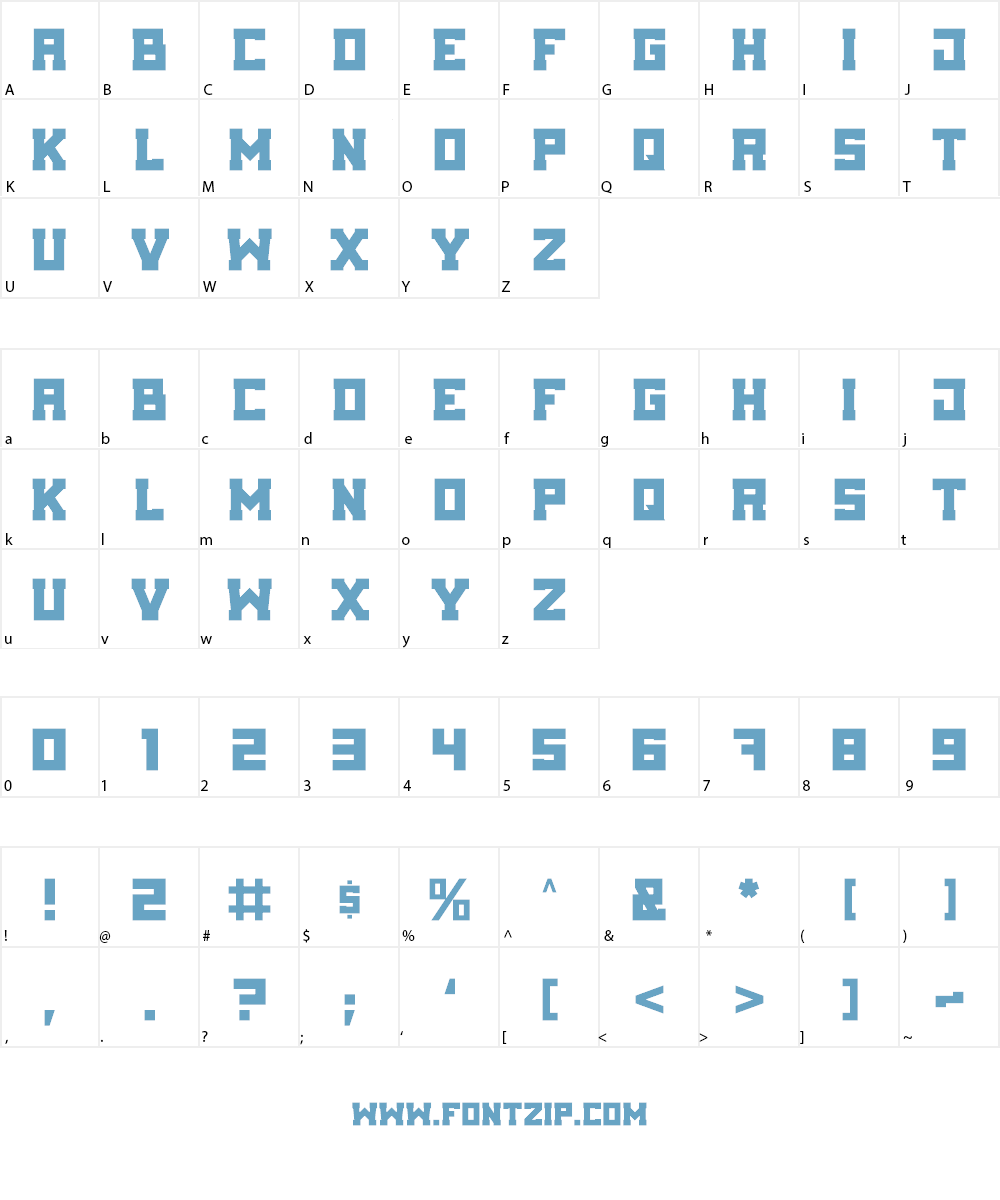
Cuadra is a bold and heavy display font inspired by the party at night lifestyle. I’ll appreciate your support if possible, even a cup of coffee goes a long way, Thanks!